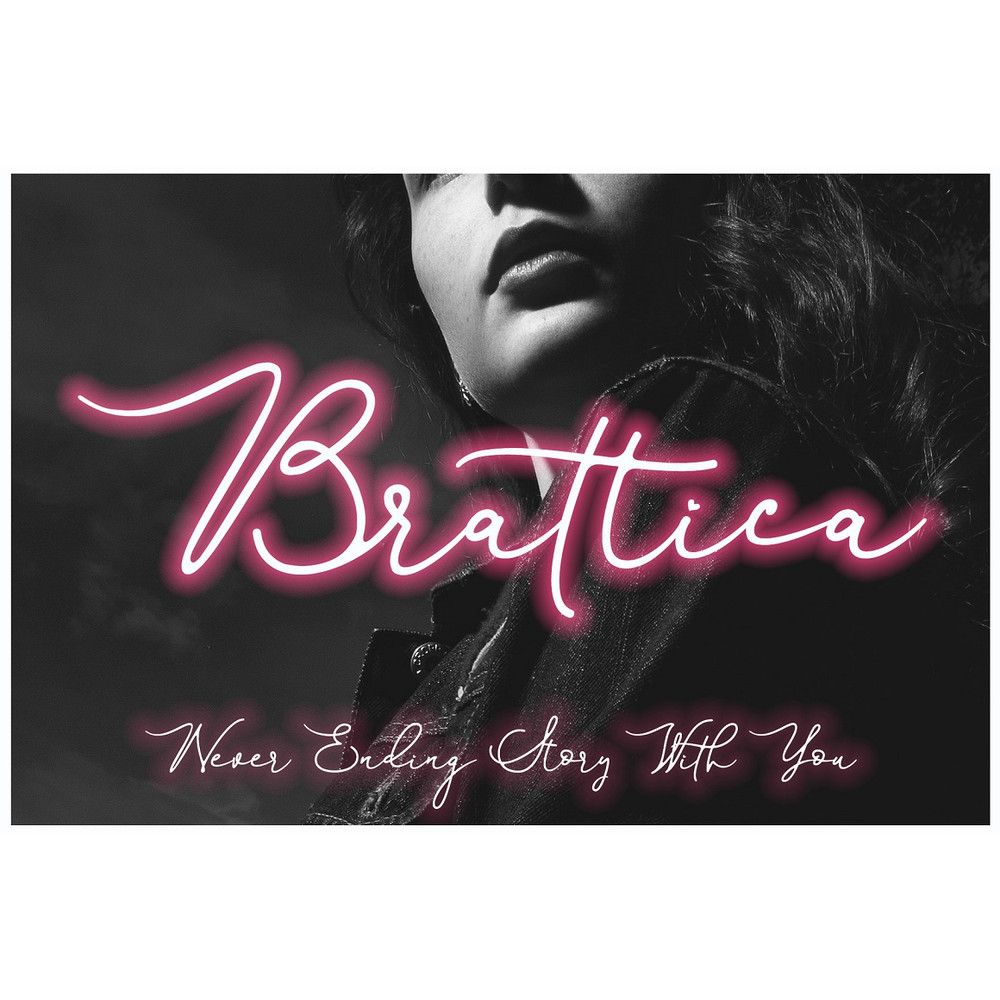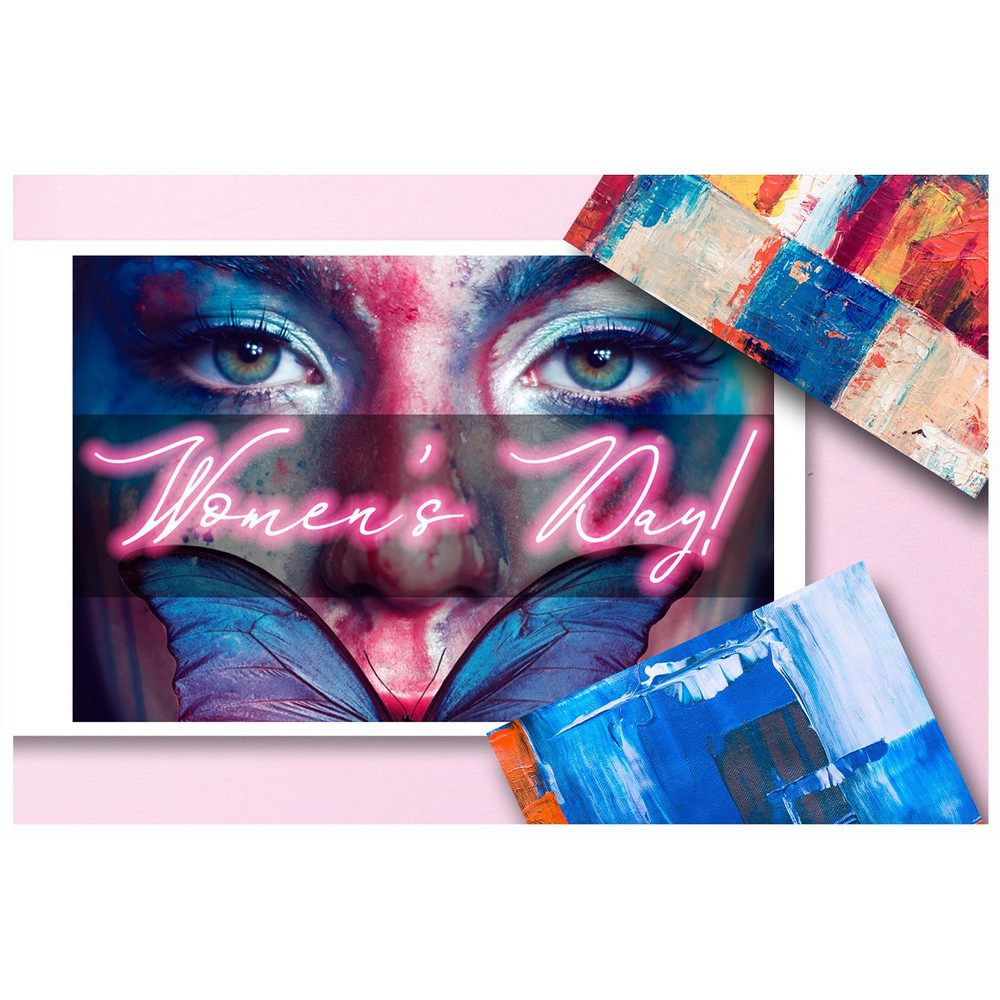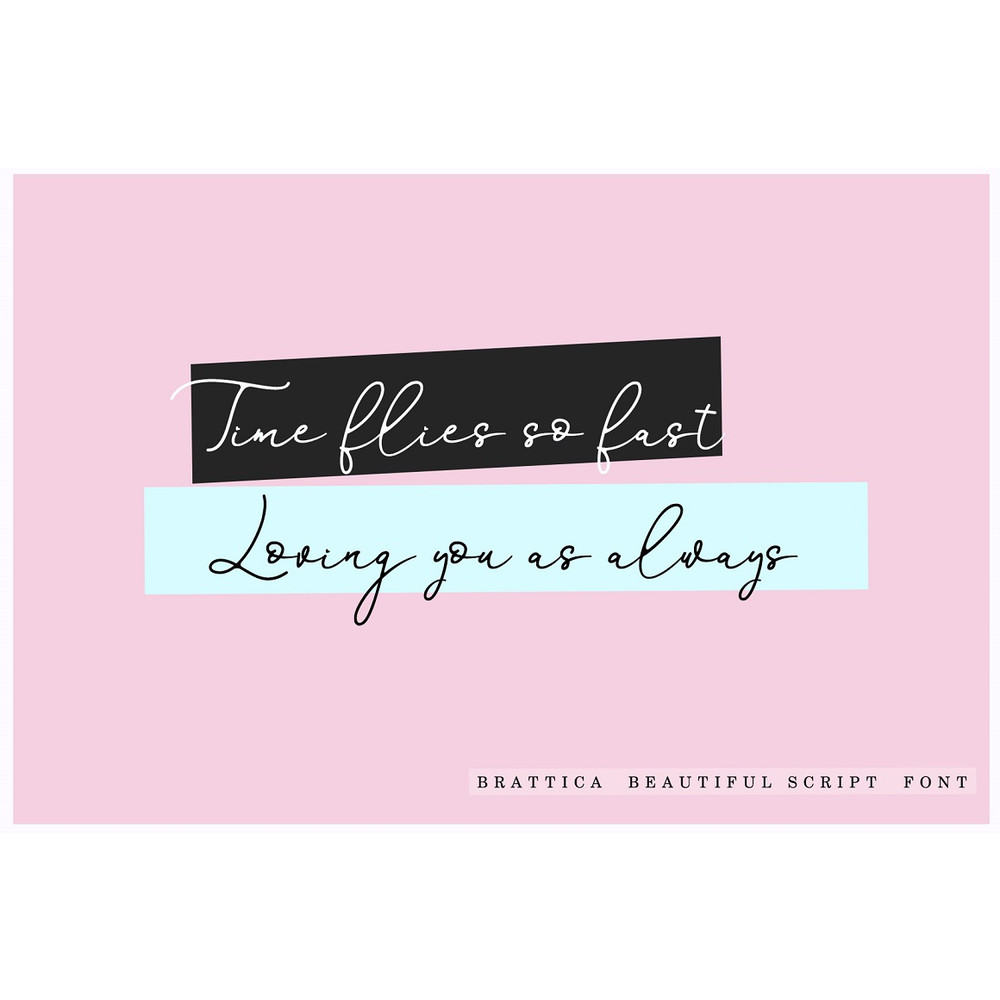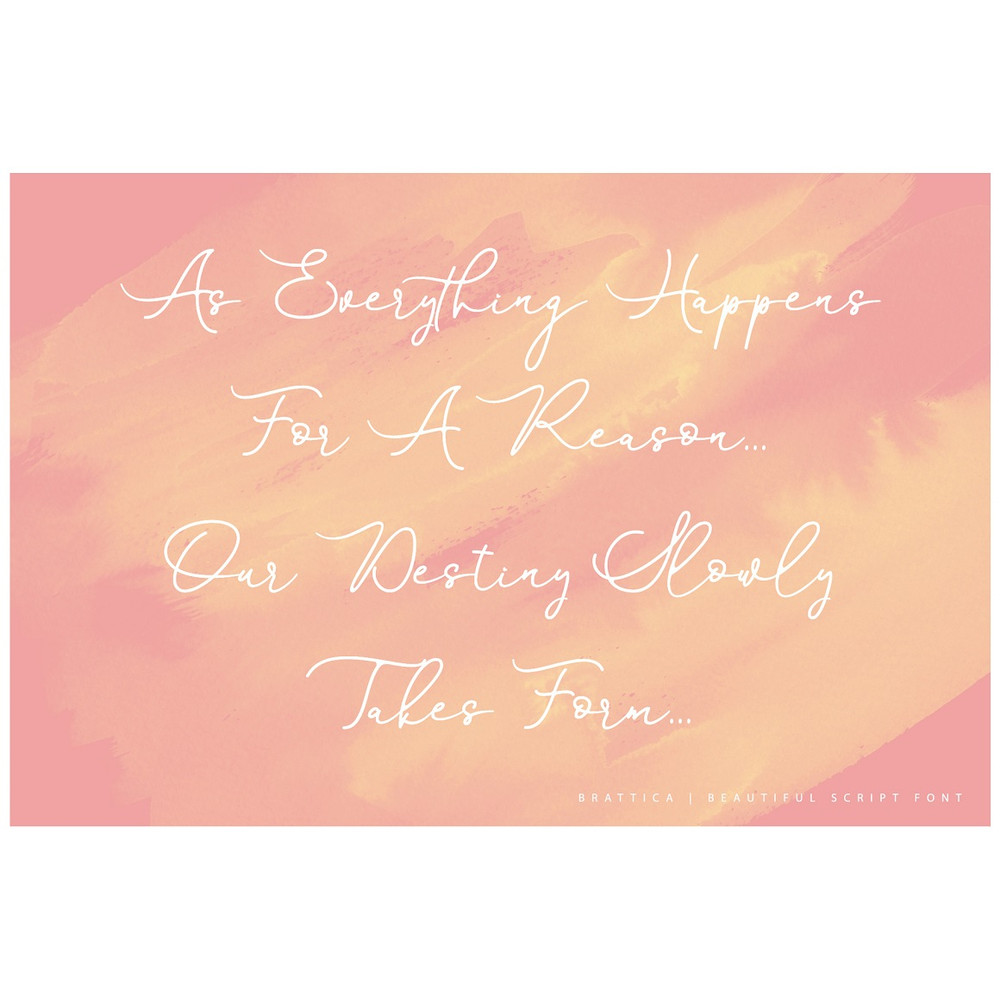
Brattica Script is a font with awesome and classy taste, comes with natural touch, so much ligatures.
We keep this font looks classy, readable, elegant, stylish, catchy and absolutly easy to use.
This font is the great choice for watermark on branding, design, wedding, photography, signature, logo design, album cover, business card, quotes, and many other design project.
The font design seems to show that you have a passion in the business and give your love to the products and services you are offered to customers.
Because it is an eye-catching signature font, you can use it for a variety of purposes including wedding invitation, signature, logo, branding, poster, and many more.
– Stylish handwritten style
– So much Special Ligatures